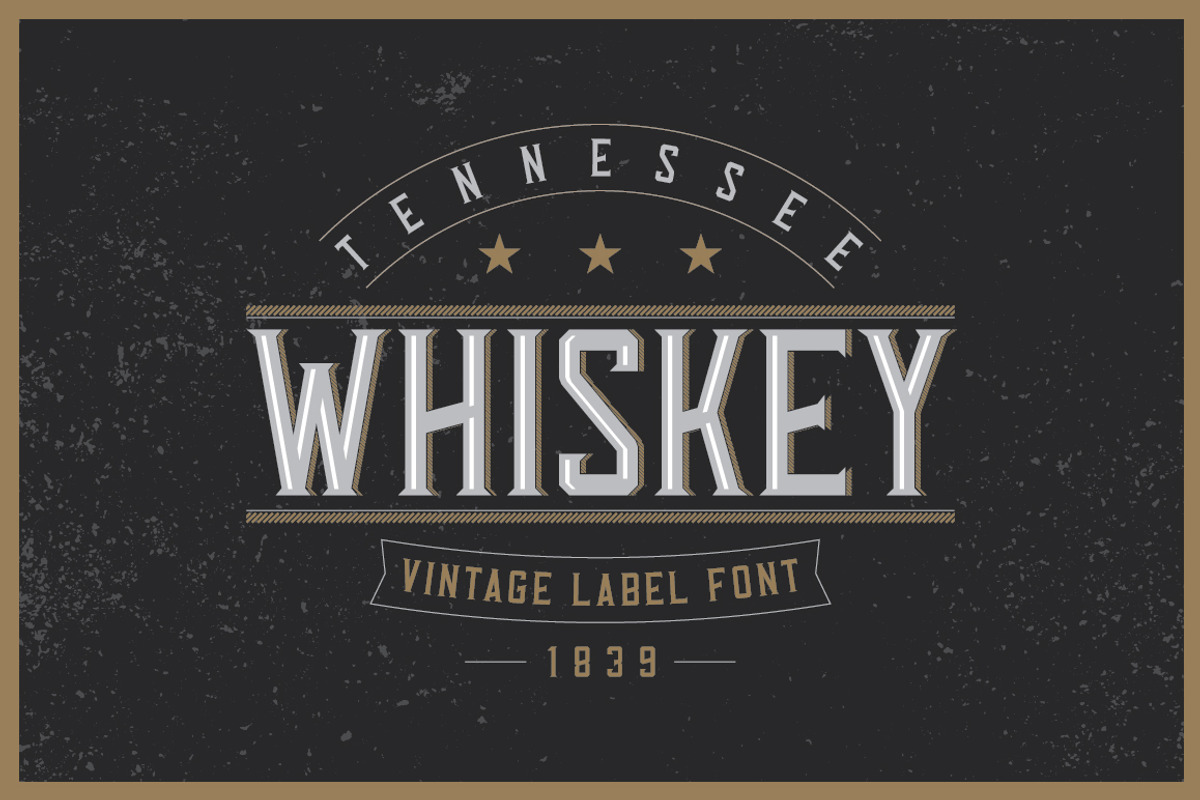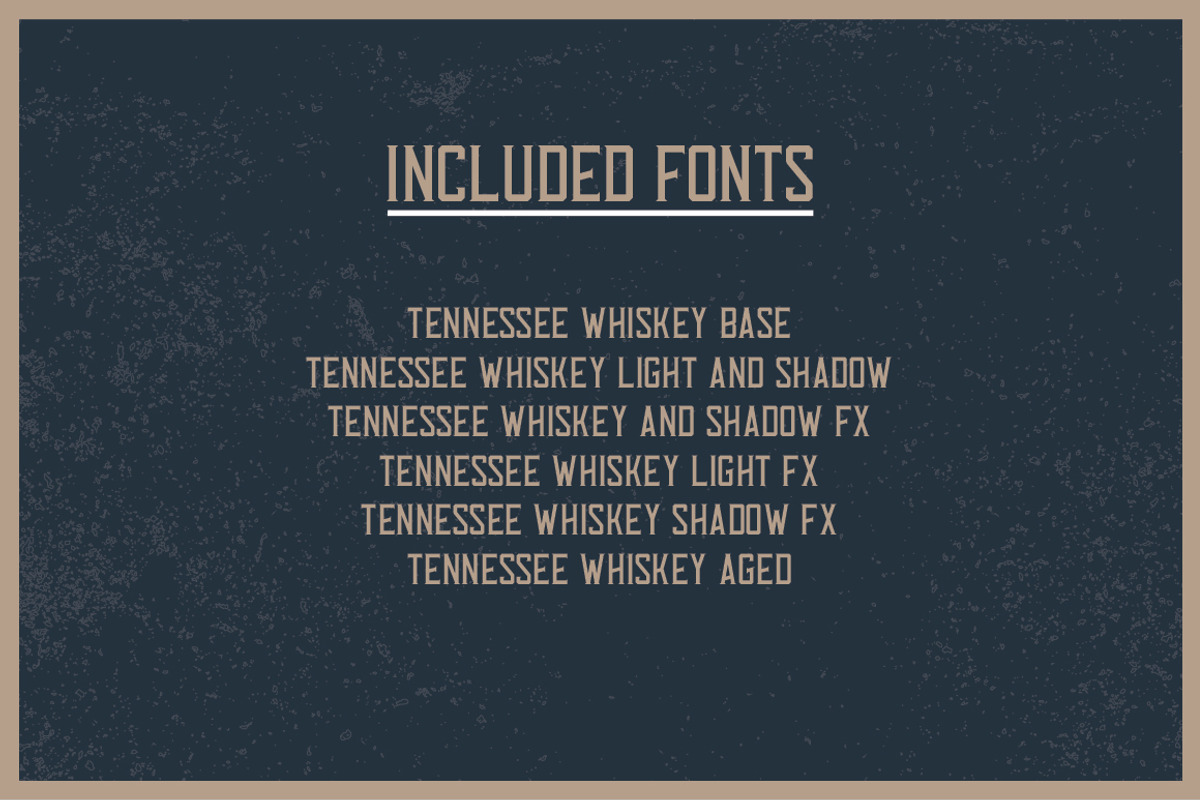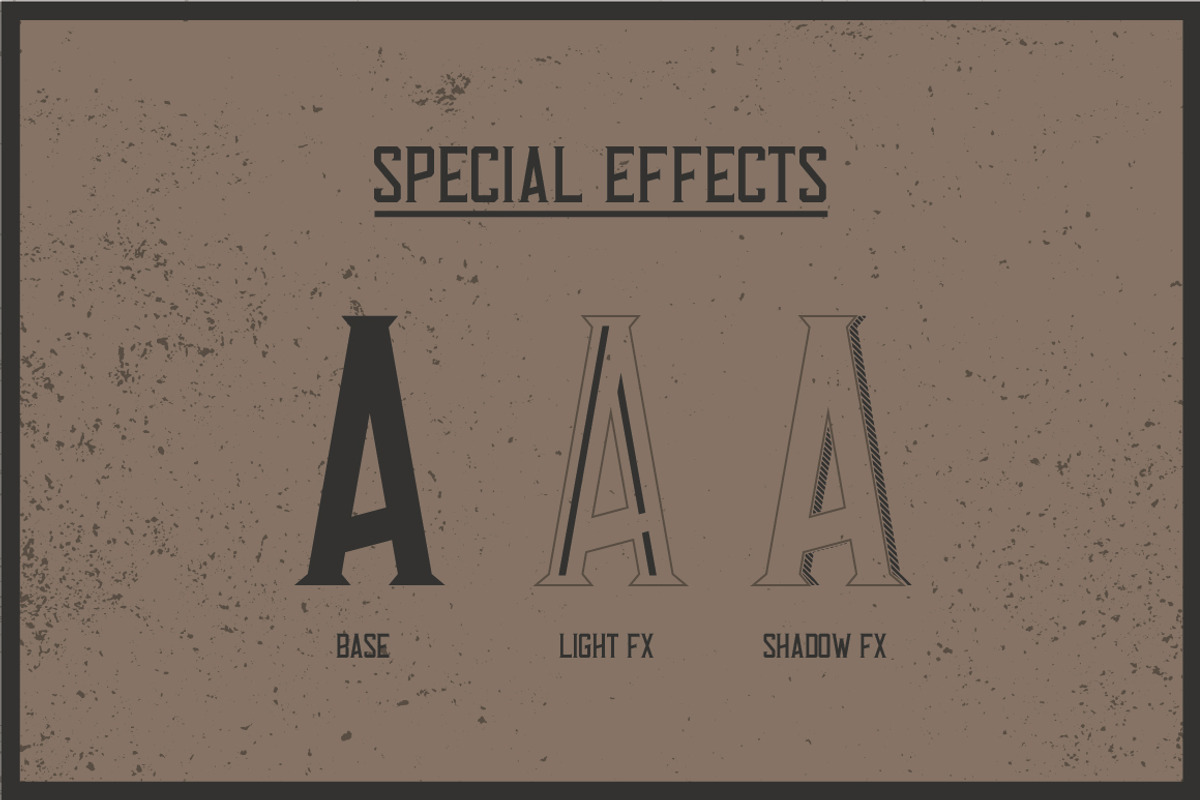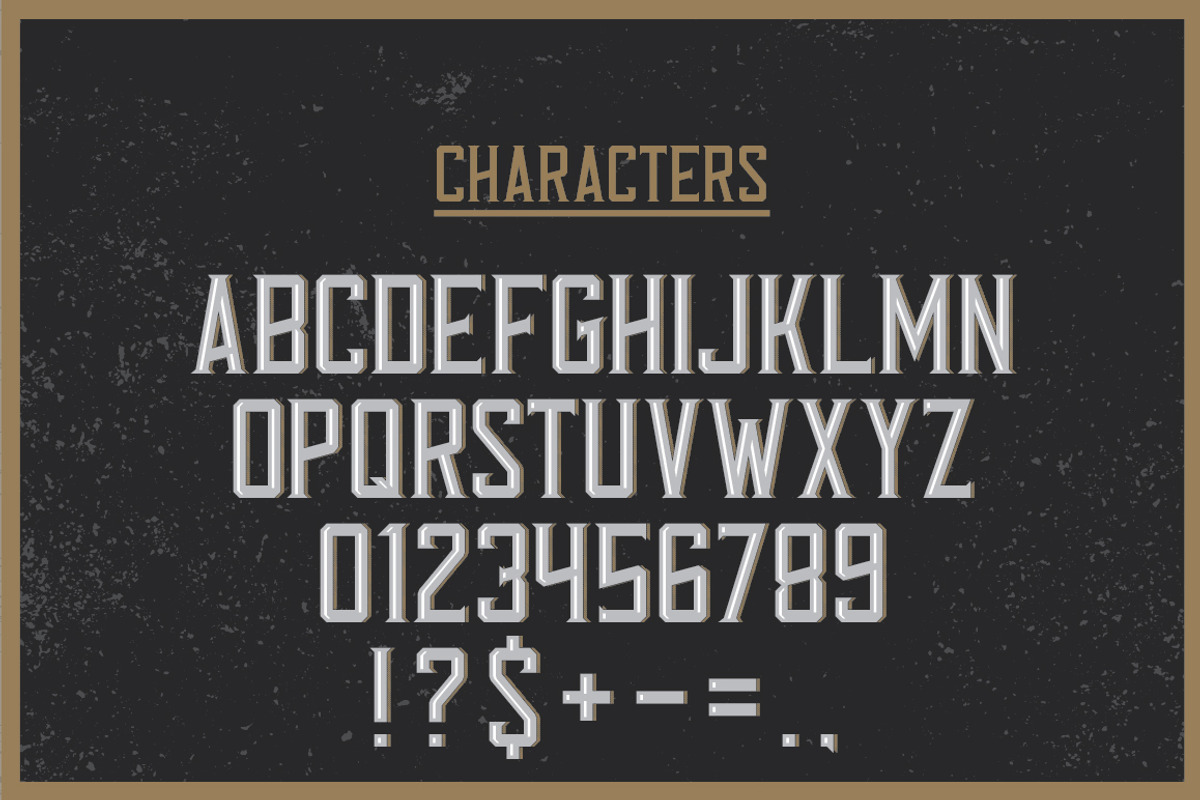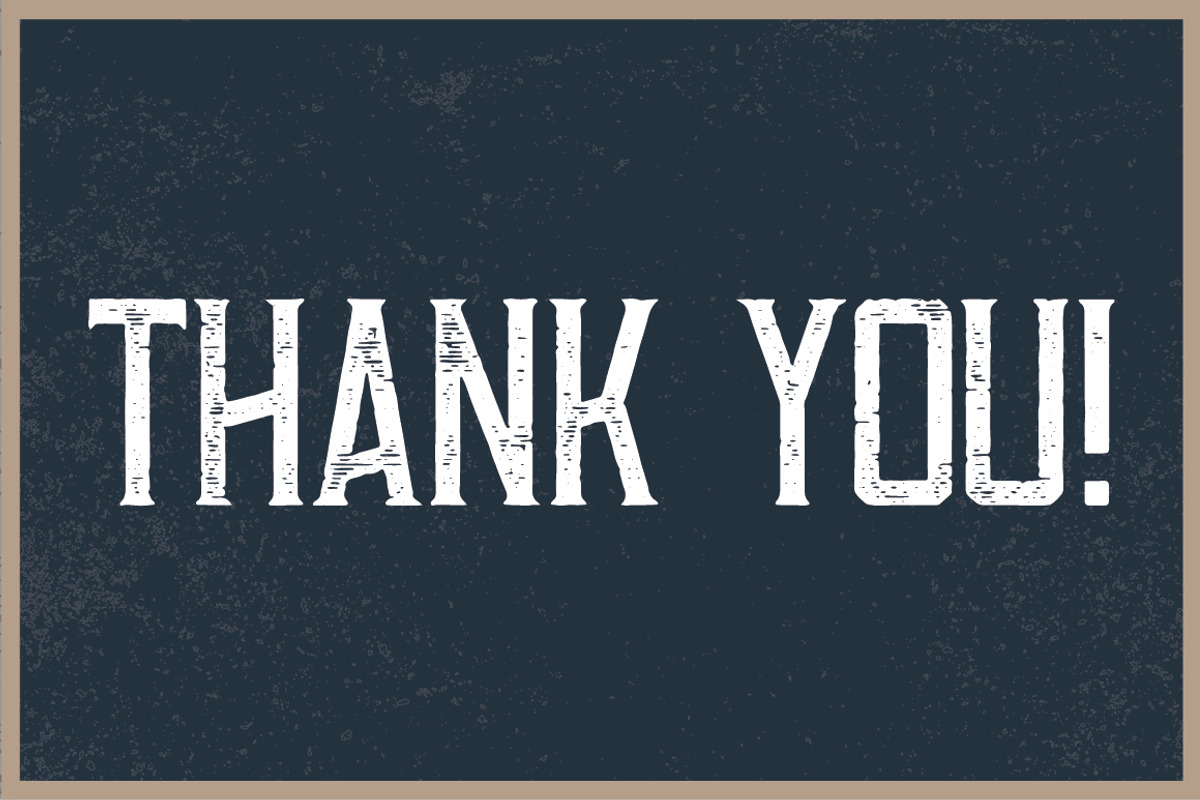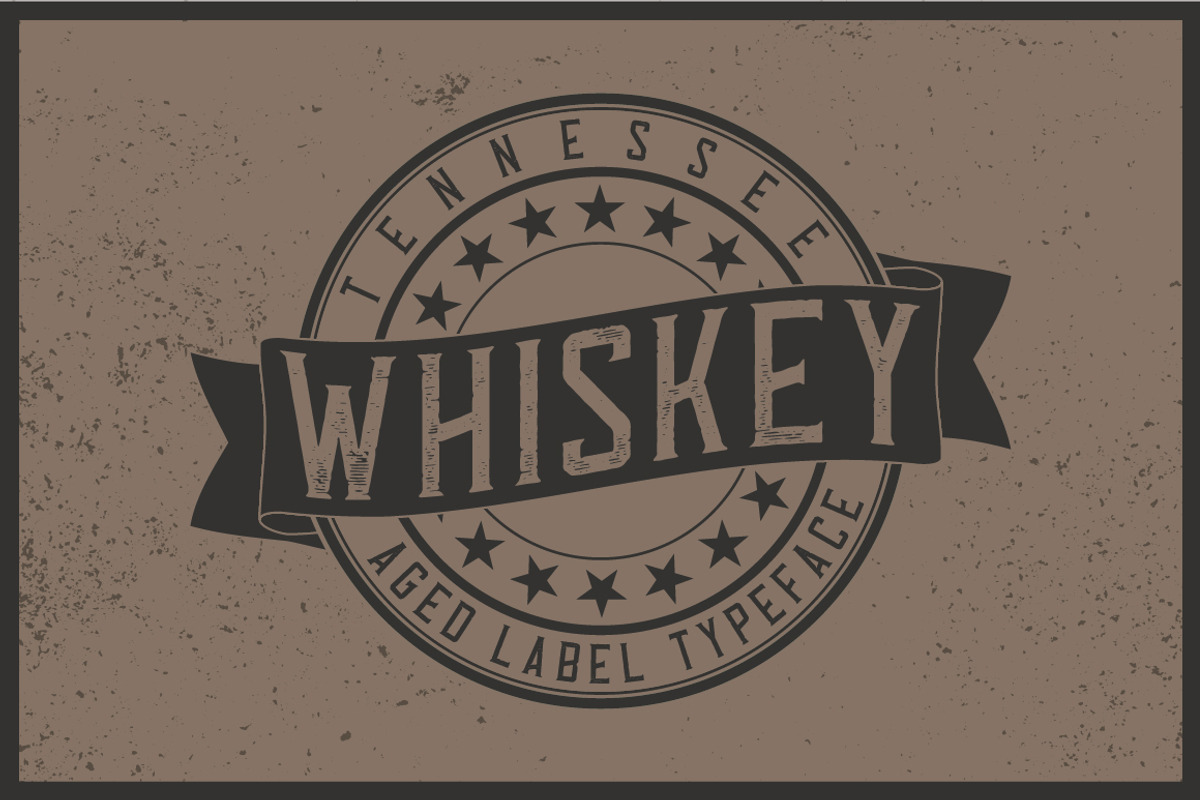
Tennessee Whiskey label font
Tennessee Whiskey label font by VozzyStock is a font selected for branding, posters, packaging, typography.
- You can mix light, texture and shadow effects (look at 4-th screenshot)
Why Tennessee Whiskey label font is worth a look
Tennessee Whiskey label font by VozzyStock fits naturally into Branding, posters, packaging, typography.